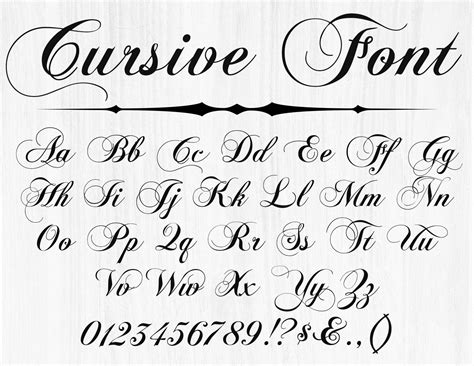
In the digital age, typography has evolved beyond simple communication into a form of artistic expression. Whether you are designing a wedding invitation, creating a social media bio, or crafting a personal brand, the aesthetic appeal of your text speaks volumes. One character that frequently demands attention for its elegance and visual appeal is the Fancy Cursive A. This specific glyph serves as a cornerstone for many decorative designs, providing a sophisticated touch that standard fonts simply cannot replicate. By understanding how to implement these stylized characters, you can elevate your digital presence and transform mundane text into a piece of art.
The Evolution and Appeal of Decorative Script
The history of cursive writing is rooted in the pursuit of speed and grace. However, in modern typography, the focus has shifted toward the visual impact of individual letters. A Fancy Cursive A often acts as a focal point, especially at the start of a document or a name. The intricate loops, sweeping curves, and ornate flourishes found in these characters draw the eye and create a sense of professional craftsmanship. Unlike standard serif or sans-serif typefaces, cursive variations feel personalized and intentional, making them a favorite for designers looking to convey luxury, elegance, or creativity.
There are several reasons why users seek out specialized character sets, including:
• Brand Identity: Establishing a signature look that distinguishes your work from others.
• Social Media Aesthetics: Standing out in crowded feeds like Instagram, TikTok, or Twitter.
• Digital Projects: Enhancing invitations, digital journals, and creative presentation slides.
• Personal Expression: Giving a unique flair to digital signatures and online profiles.
Variations of the Fancy Cursive A
Not all cursive styles are created equal. When searching for the perfect Fancy Cursive A, you will encounter a wide spectrum of designs ranging from minimalist loops to highly decorative, Victorian-inspired flourishes. Choosing the right style depends entirely on the context of your project. A minimalist cursive 'A' might work well for a professional brand, while a highly elaborate version is better suited for event invitations or artistic graphics.
Below is a brief comparison of how different styles impact the overall readability and aesthetic:
Style Category Visual Characteristic Best Use Case
Minimalist Cursive Clean, thin lines with subtle curvature Professional branding and headers
Victorian Flourish Thick strokes with elaborate loops Invitations and formal announcements
Calligraphic Brush Variable stroke weight with a bold look Social media posts and creative quotes
Modern Script Slanted, fluid, and highly readable Email signatures and digital biographies
💡 Note: Always ensure that the specific style of the Fancy Cursive A you choose is legible on mobile devices, as smaller screens can sometimes distort highly ornate glyphs.
How to Effectively Integrate Fancy Characters
Integrating a Fancy Cursive A into your text is easier than most people realize, but it requires a balance of restraint and creativity. Overusing decorative fonts can lead to a cluttered appearance, which diminishes the impact of the design. The secret lies in using these characters as an "accent" rather than the primary font for long blocks of text.
Follow these steps to ensure your implementation remains high-quality:
• Focus on Placement: Use the stylized 'A' at the very beginning of a sentence or a name for the best visual impact.
• Consistency is Key: If you use a specific style for your letter 'A', ensure other decorative characters in your text follow a similar visual weight or theme.
• Check Compatibility: Confirm that the platform you are posting on supports Unicode characters, as some older systems might display them as boxes if they lack the necessary font mapping.
• Pairing Fonts: Pair your ornate character with a simple, clean typeface to create a balanced contrast that highlights the beauty of the cursive design.
💡 Note: While these characters are perfect for headlines or display text, they should generally be avoided for body paragraphs to maintain optimal accessibility for screen readers and visually impaired users.
Creative Applications for Your Projects
Once you have identified the right Fancy Cursive A for your needs, the possibilities for application are nearly endless. Graphic designers often use these characters to create unique logos or wordmarks. Because they are treated as symbols, they can be placed on top of photographs or color gradients to add a layer of sophistication. If you are a social media influencer, utilizing these symbols in your profile bio can make your name pop, potentially increasing profile visits by creating a memorable first impression.
For those working in digital marketing, consider how a single, well-placed ornate character can shift the tone of a heading from "standard" to "premium." By substituting the standard 'A' in a product name or a campaign slogan, you invite curiosity and engagement from your audience. The aesthetic value of these characters is not merely superficial; it signals to the viewer that care and detail have been put into the creation of the content.